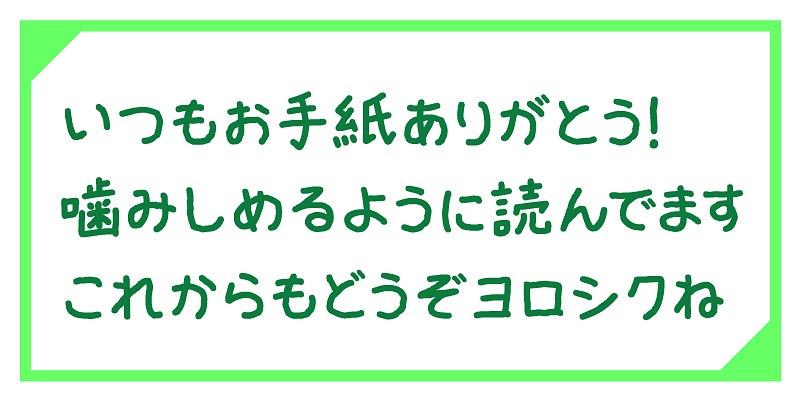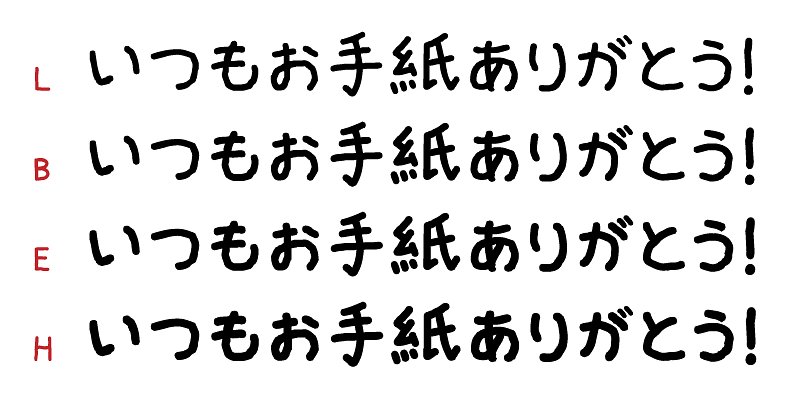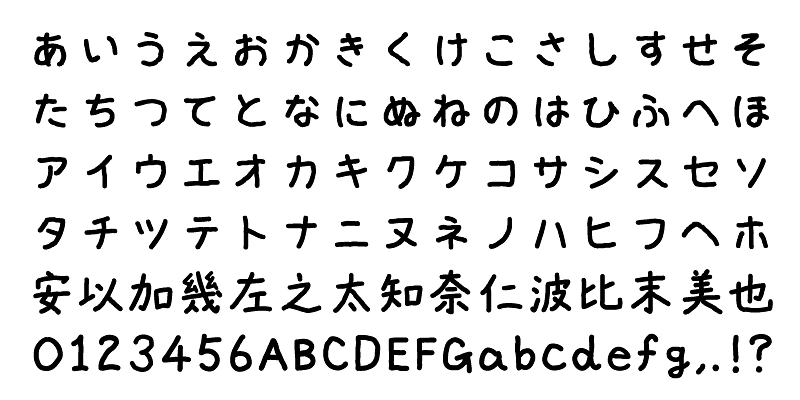
The “takumi yururi font” has large kana characters with wide counter spaces, giving a loose and relaxed impression. It is designed so that the blackness, density, and stroke widths are visually consistent between characters. It emphasizes softness, cuteness and a pop flavor, but retains the subtle seriousness of handwriting, which is effective for a wide range of uses. This typeface family has two variations: “Normal” with larger kana glyphs, and “Mini” with smaller kana glyphs.
Fonts with names ending with “P” have proportional widths for alphanumeric, hiragana, katakana and some symbol characters. Fonts with names that do not end with “P” have fixed widths for these characters.